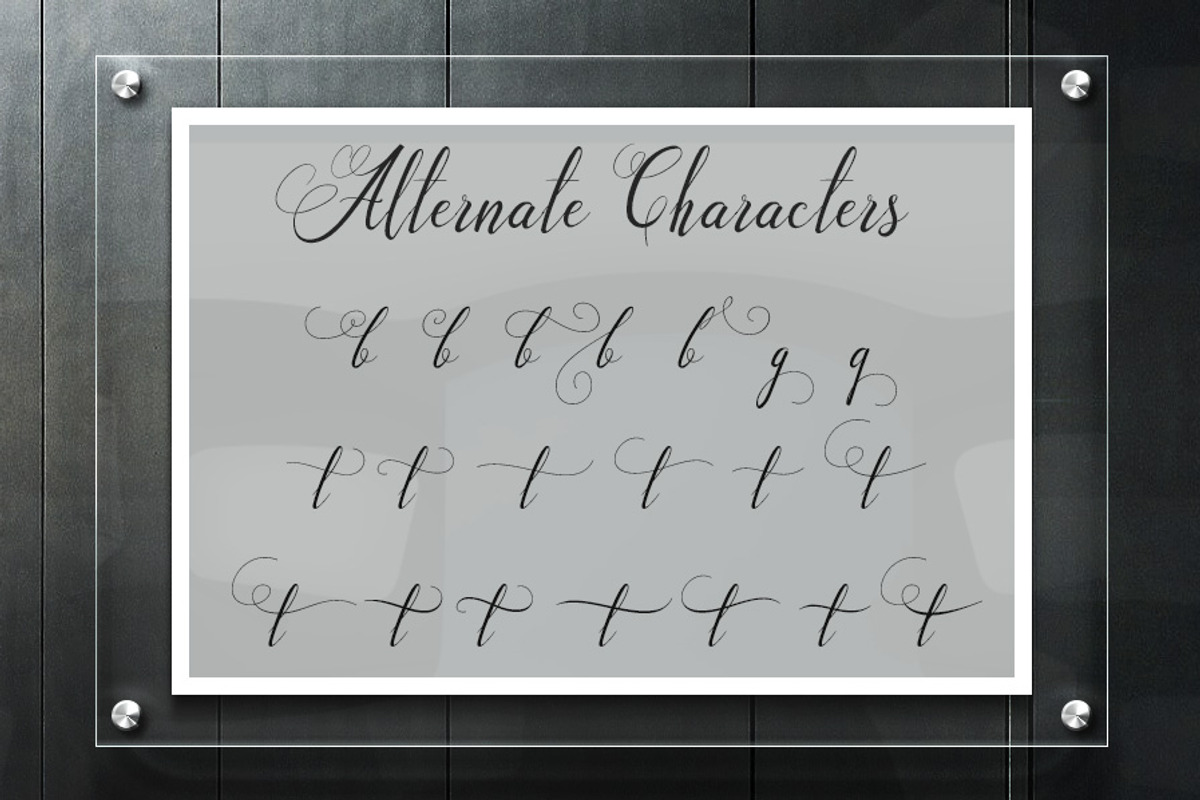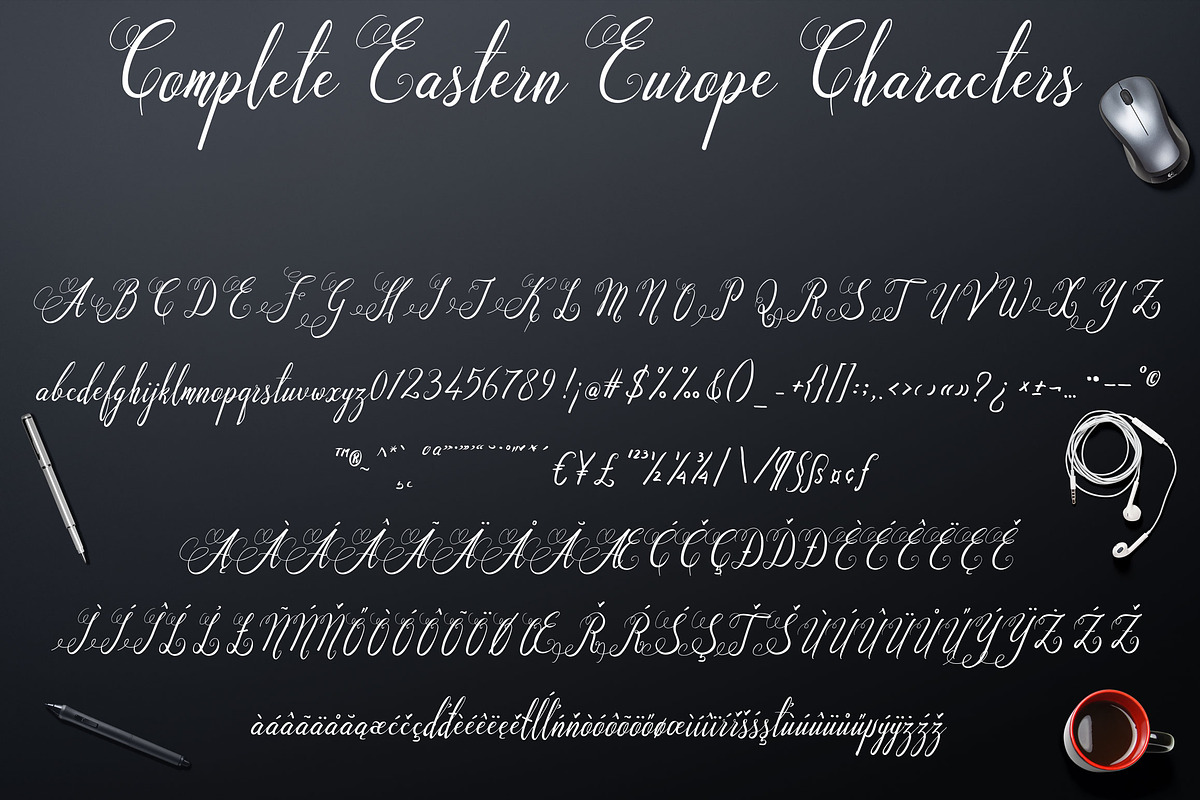
Santa Rose Script
Hi, I proudly present my new cute and beautiful handwritten script. With many of pretty alternate characters, it will nice to make your design cute and beauty as handwritten.
- Contain 380 glyphs and supported to basic Latin character and eastern Europe language.